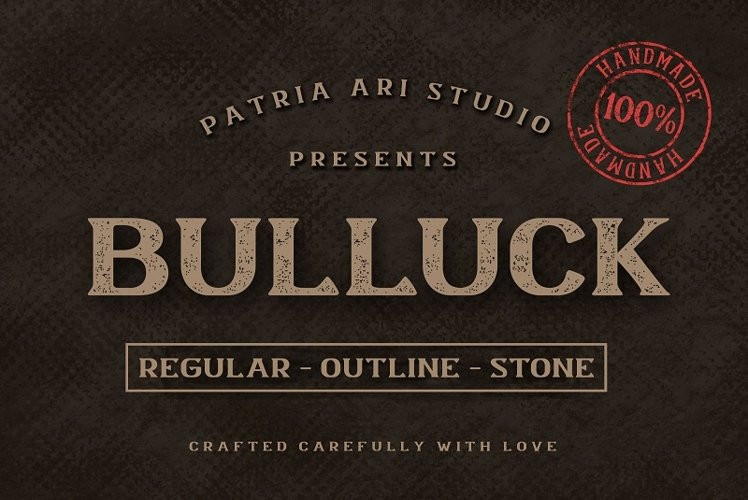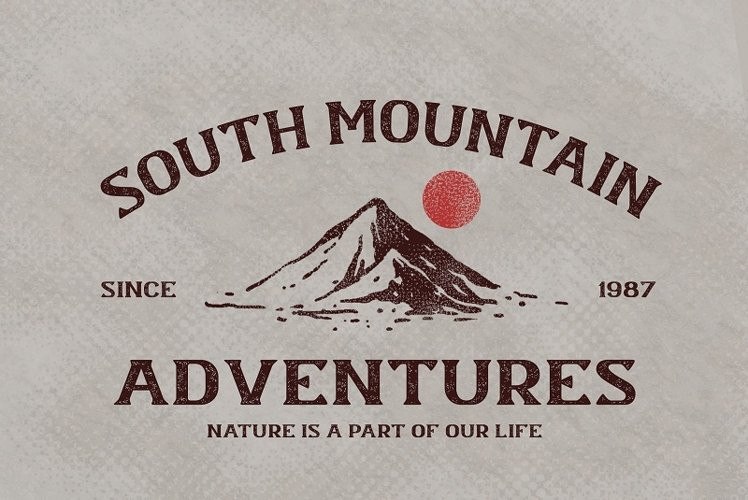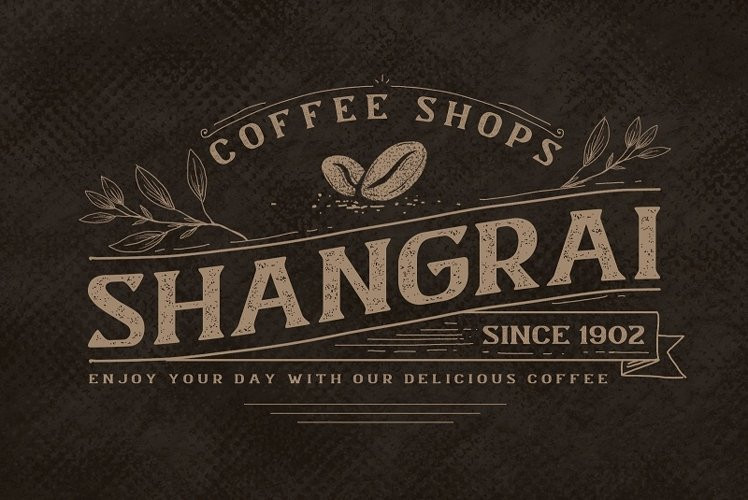
Bulluck Font
Bulluck FontBulluck is a serif display typeface with strong characters to support your brand/project.
Bulluck is perfect for projects such as logos & branding, headlines, posters, signage, advertisements, printed quotes, product packaging, product designs, label, photography, watermark, special events or anything.